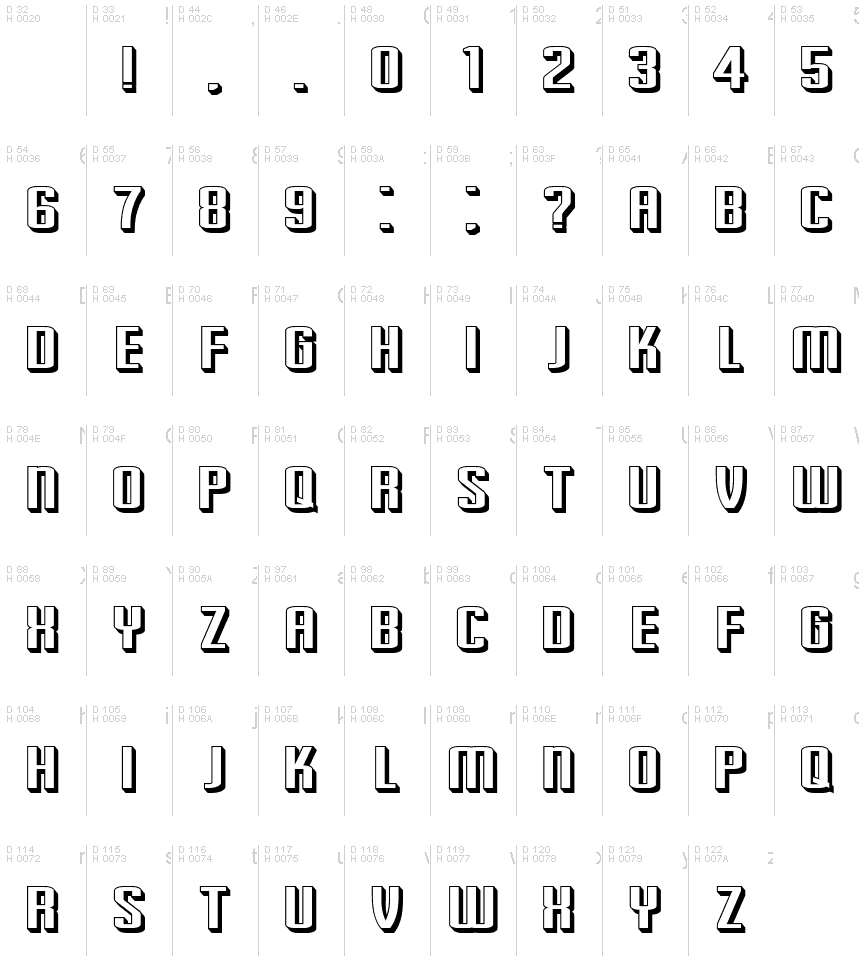
Ruanda Light Regular
Ruanda Light is a stunning display font designed by the talented Vladimir Nikolic. Its unique 3d retro style and semi-bold weight make it perfect for projects requiring a touch of nostalgia and vintage appeal. The condensed width of the font adds an extra layer of sophistication, making it ideal for use in branding, advertising, and packaging design. Whether you're looking to create eye-catching headlines or memorable logos, Ruanda Light is sure to impress with its bold yet elegant appearance. Let this font elevate your next project with its timeless charm and versatility!
It comes in Regular and Light version!